Type. A Visual History of Typefaces & Graphic Styles
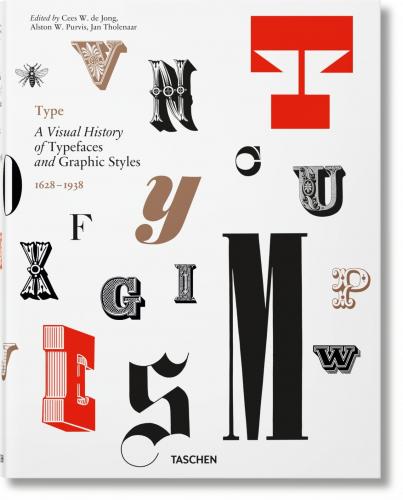
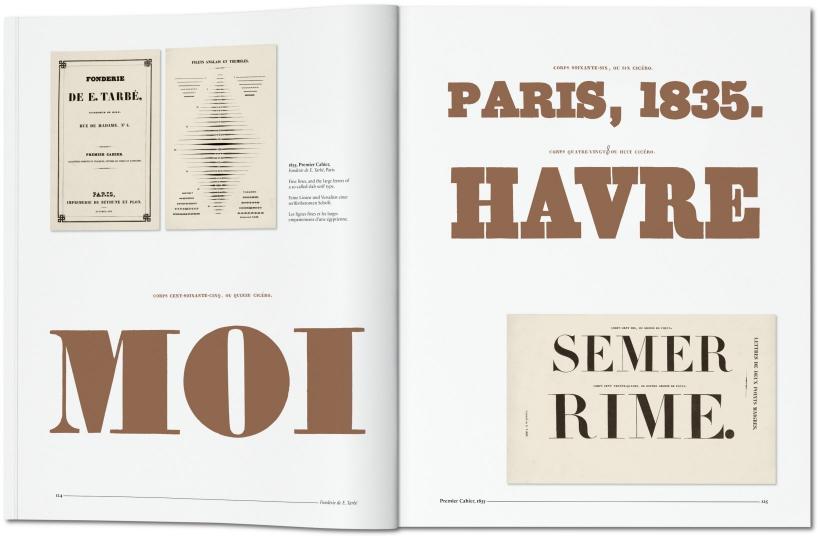
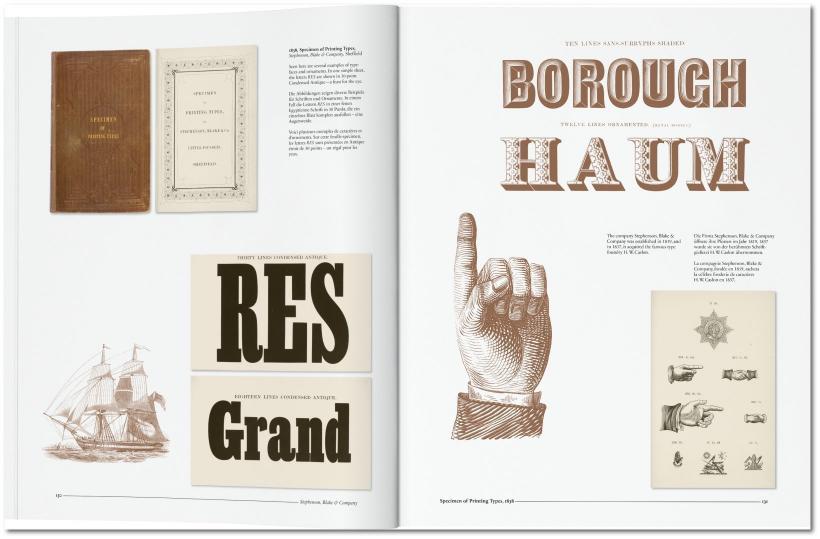
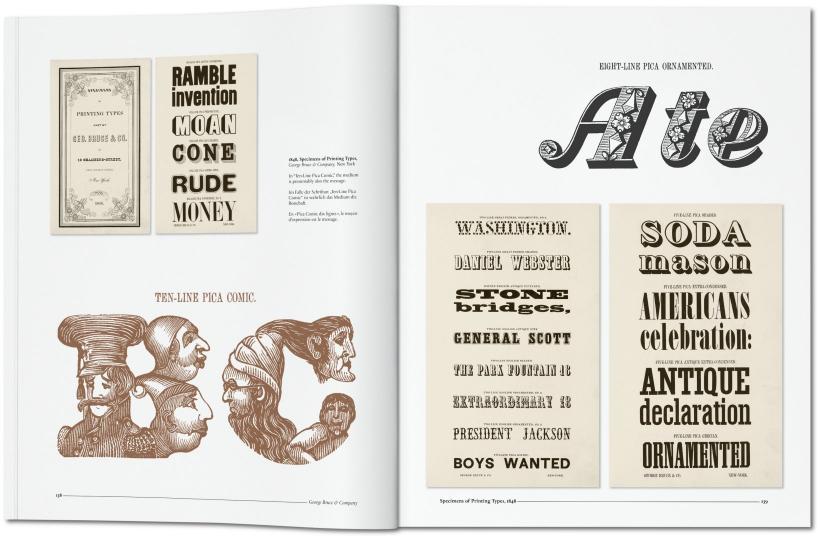
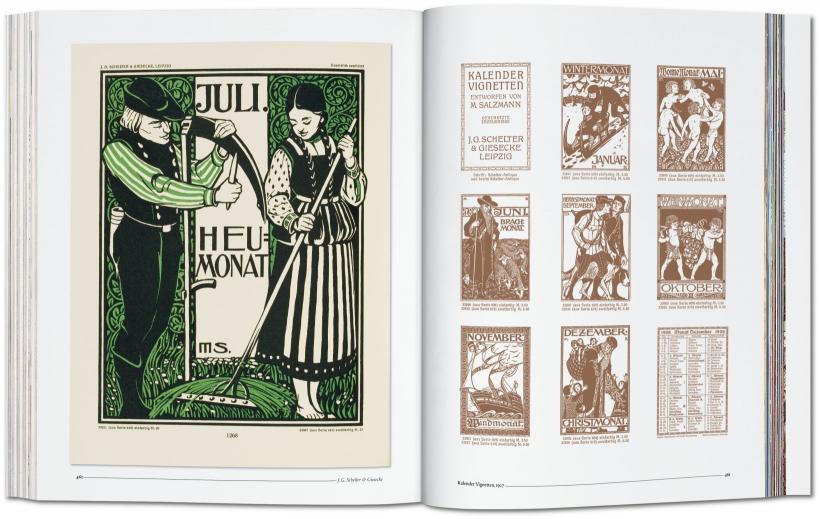
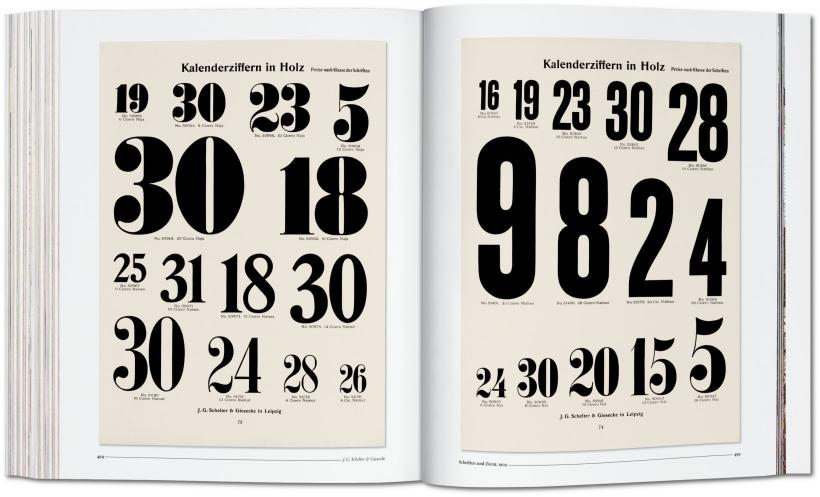
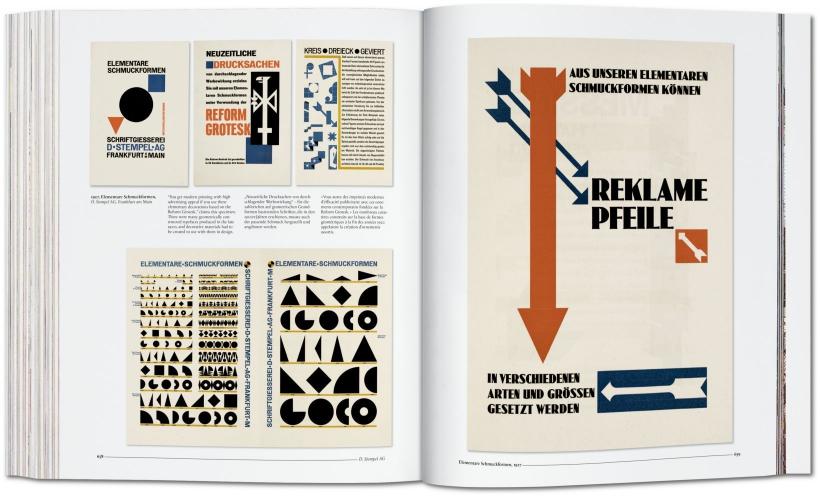
For the Love of Letters. A history of fonts and graphic styles from 1628 to 1938
A connoisseur’s overview of typeface design, Type offers a dependable history of elegant fonts from 1628 to the mid-20th century. Derived from a distinguished Dutch collection, exquisitely designed catalogues trace the evolution of the printed letter through specimens in roman, italic, bold, semi-bold, narrow, and broad fonts, as well as borders, ornaments, and initial letters.
This comprehensive collection offers a thorough overview of typeface design from 1628 to the mid-20th century. Derived from a distinguished Dutch collection, a series of exquisitely designed catalogues traces the evolution of the printed letter via specimens in roman, italic, bold, semibold, narrow, and broad fonts. Borders, ornaments, initial letters, and decorations are also included, along with lithographic examples, letters by sign writers, inscription carvers, and calligraphers.
The first part of the book covers pre-20th-century typefaces, with texts by editor Cees de Jong and collector Jan Tholenaar. The second part deals with the period from 1900 to the mid-20th century and contains a historical outline by Alston W. Purvis. Featured type designers include William Caslon, Fritz Helmuth Ehmcke, Peter Behrens, Rudolf Koch, Eric Gill, Jan van Krimpen, Paul Renner, Jan Tschichold, A. M. Cassandre, Aldo Novarese, and Adrian Frutiger.
The editors and authors:
Cees W. de Jong is a designer and publisher based in Naarden, the Netherlands. He has published numerous books on design, architecture, art and graphic design, and is now working as a design/publishing consultant and author.
Alston W. Purvis is a professor of the visual arts division of the School of Arts at Boston University, USA. He is also the author of many books on graphic design.
Jan Tholenaar was a collector of the printed letter in all its various incarnations; especially in the form of design catalogs and specimen books. He lived in Amsterdam, where he passed away in 2009.